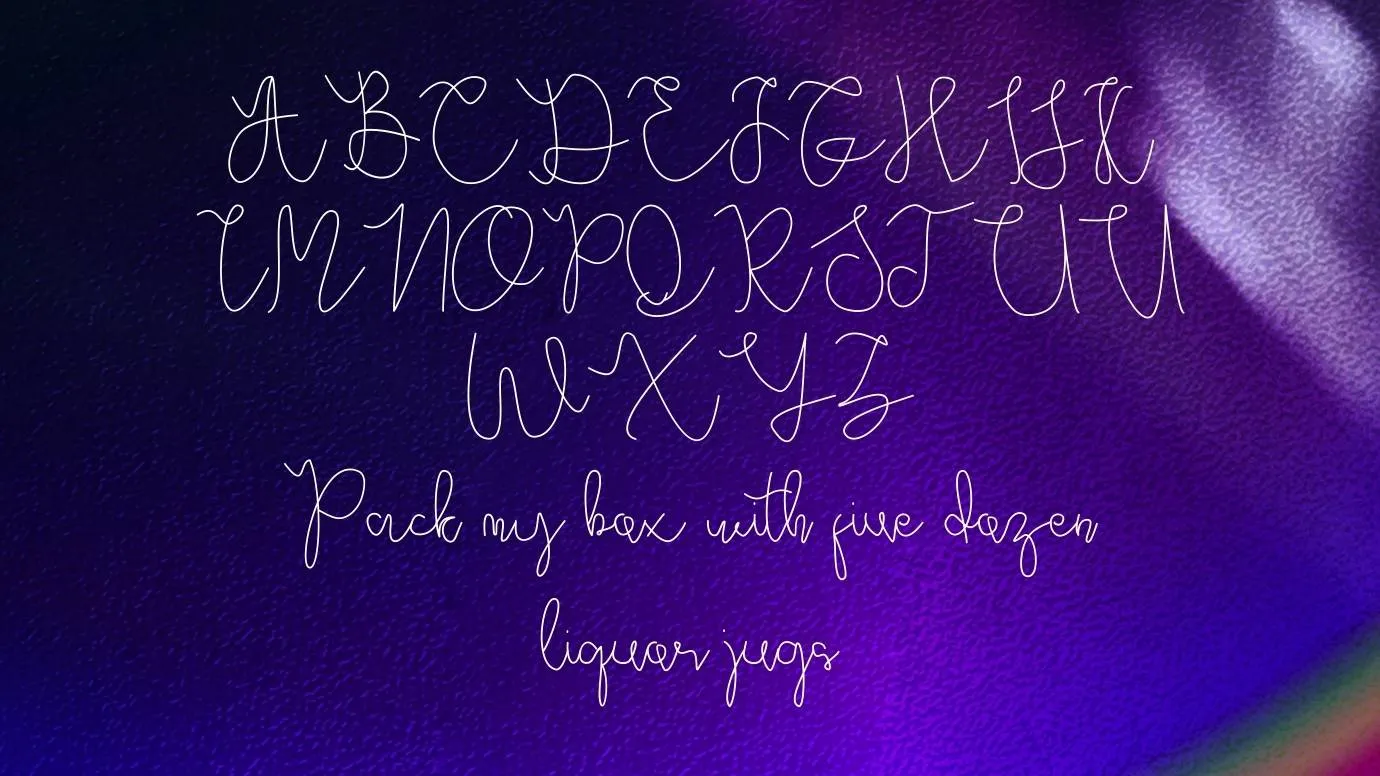
In this post, We are going to introduce another handwritten typeface that has thin characters known as Jonathan Font. This interesting typeface looks like script characters. It was created and shared by Muksal Creative.
Jonathan Font